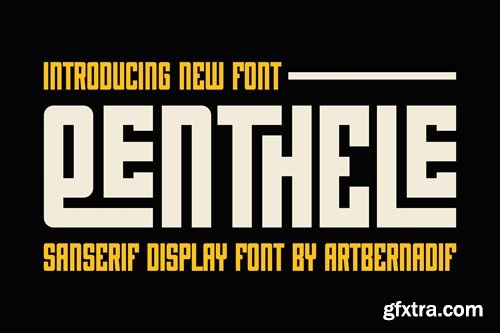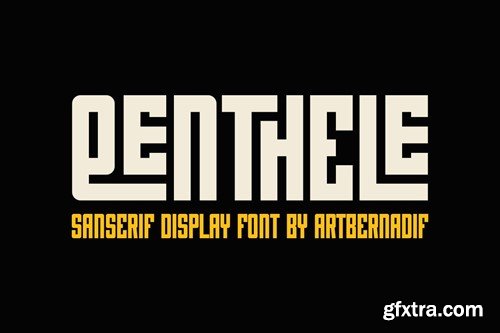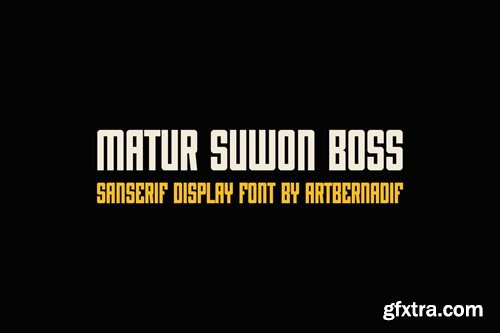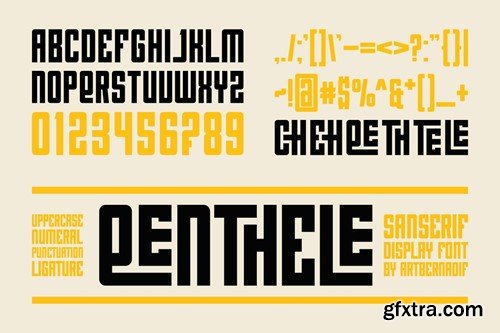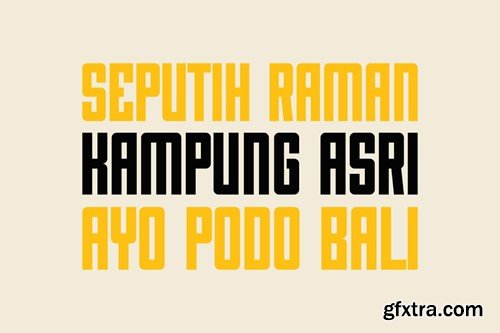
Qenthele Font
Introducing our new product Qenthele Font - Modern Font Qenthele Font- Modern Font is a bold and authentic display font. The font is suitable for any branding project like logo, t-shirt printing, esport, and many more. outstanding in a wide range of contexts. availlable